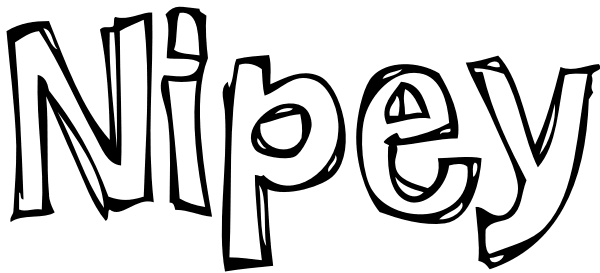
Nipey
Every single character in Nipey is unique! Meaning that no characters is a copy of another. All accented characters therefore are hand-drawn and unique. For example, the letter "ñ" is not a copy of 'n' with a diacritical tilde - and this goes for...